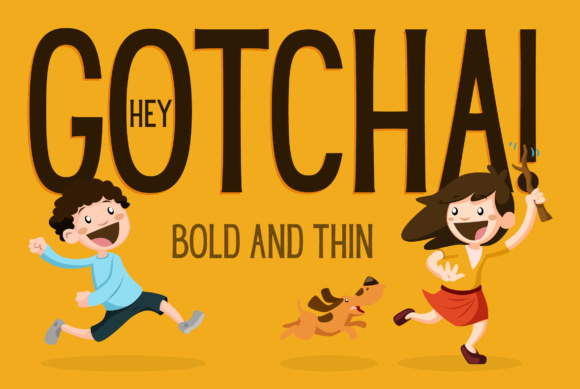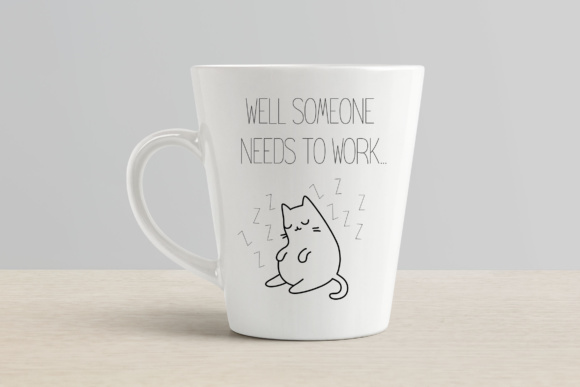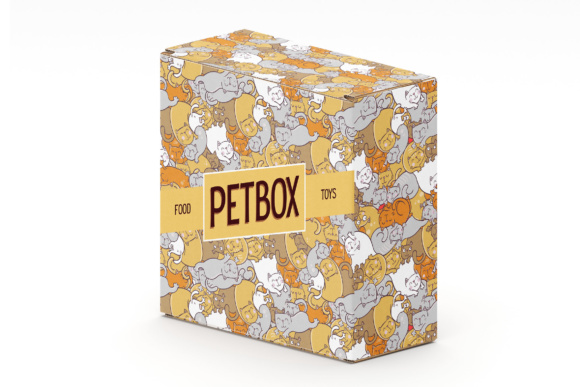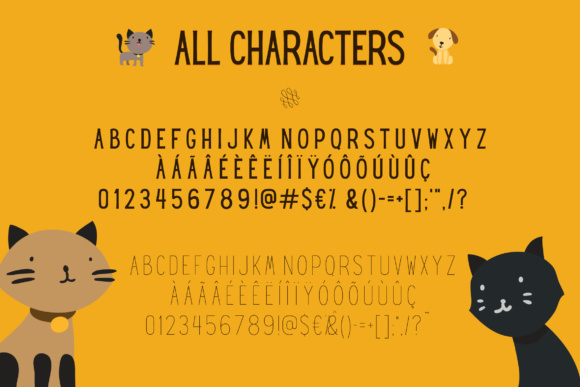
Hey Gotcha! is a fun and playful font which comes in bold, thin and with a shadow layer! Great for creating a handmade lettering look for kids and children designs.